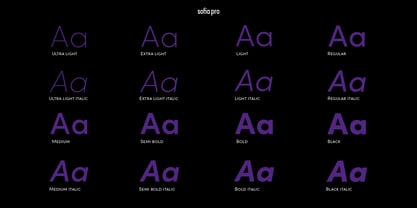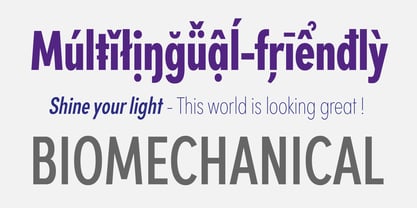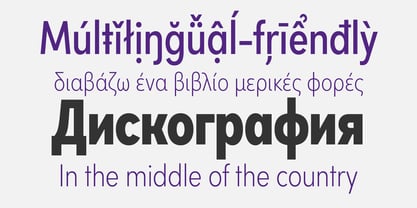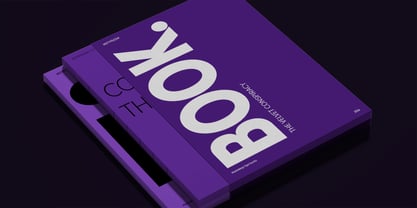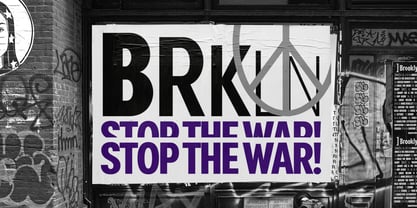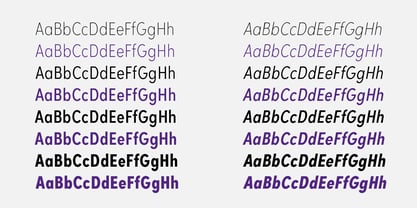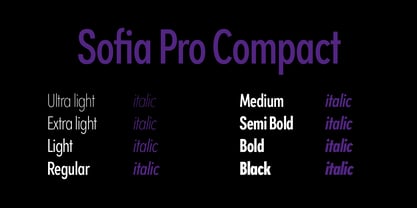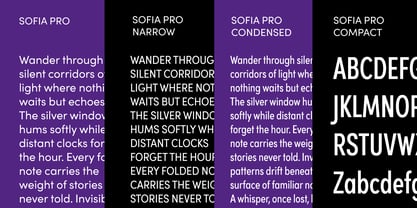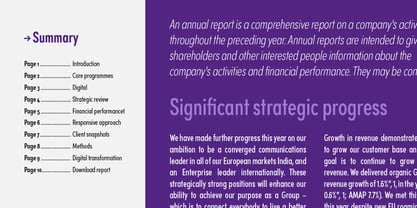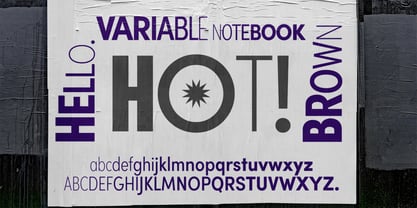
Sofia Pro Super Variable
by Mostardesign
The Sofia Pro Super Variable Font Family was designed by Olivier Gourvat and published by Mostardesign. Sofia Pro Super Variable contains 2 styles and family package options.
The variable version of Sofia Pro is built around two essential axes, weight and width, bringing together the full richness of the family—from Normal, Narrow, and Condensed to Compact styles. This flexibility allows you to shape the typeface to suit every need, whether it’s a striking headline or delicate body text, while maintaining strong visual coherence.
Designed to support creators in their most demanding projects, Sofia Pro Variable adapts seamlessly to both classic layouts and modern interfaces. With extended language support—including Latin, Vietnamese, Greek, and Cyrillic—it’s crafted to carry your messages in truly international communication. Sofia Pro Variable promises a typeface that evolves with you, ready to tell your story wherever you are in the world.